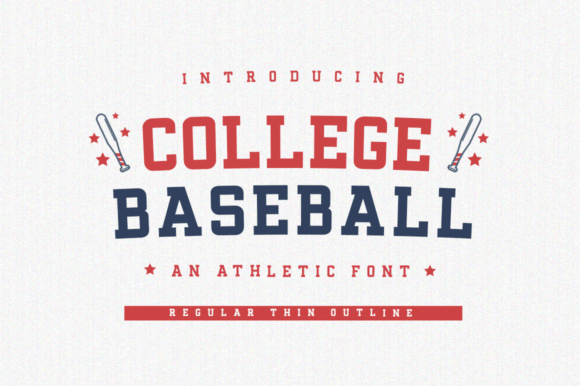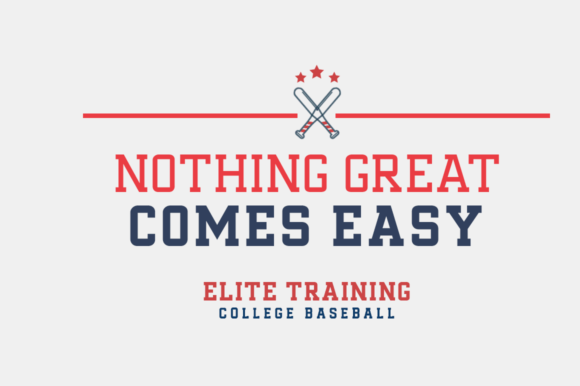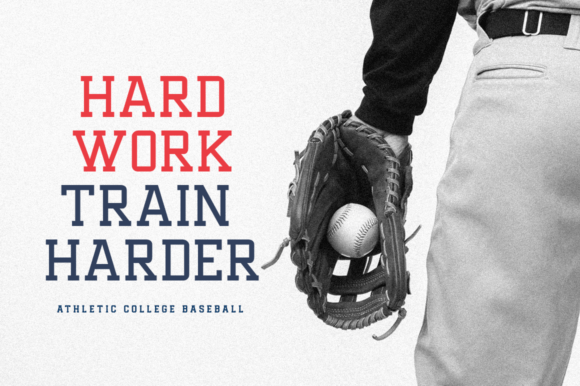
College Baseball Font
College Baseball is a fun, cool, athletic display font with 3 style variations regular, thin, and outline. Perfect for sports-themed designs such as posters, t-shirts, jerseys, sports logos, merchandise, advertising on posters, websites, and more.